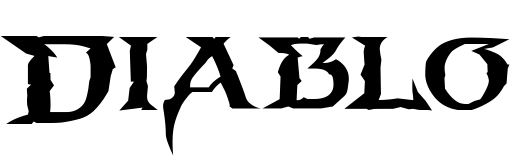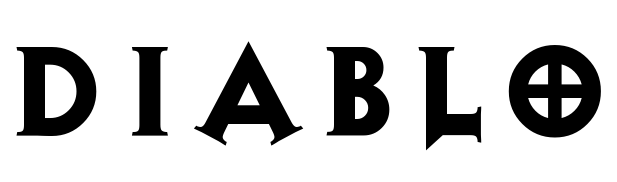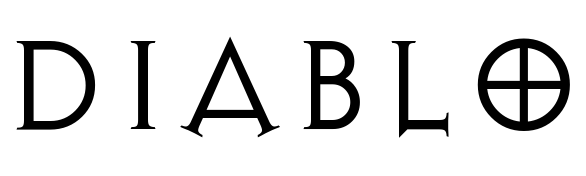
Diablo Font
ActionDiablo is a popular action role-playing video game franchise created by Blizzard Entertainment, known for its dark fantasy and horror themes. The series, set in the fictional world of Sanctuary, involves players battling through hordes of monsters and demons to combat the titular villain, Diablo, and his evil associates across multiple installments.
The Diablo 4 logo font was custom made but looks very similar to a font called Bildad created by FontGet.
Most of the text in Diablo franchise primarily utilizes the commercial font Exocet although we found a free replica called Diablo Heavy.